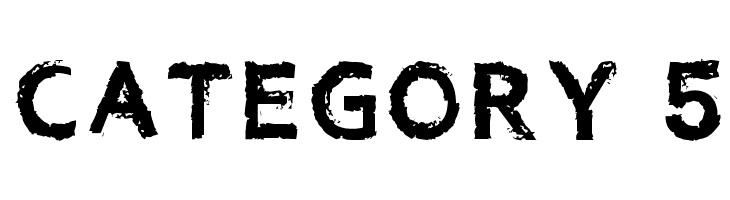
( softhunterdevil - Saptarshi Bagchi )
A futuristic, angular font with a sleek, slanted design.
( Chris Vile - www.chrisvile.com )
A bold, distressed font with a rough, textured appearance ideal for edgy designs.
( GraphicsBam - www.creativefabrica.com/ref/186/ )
A playful, bold outlined font with a whimsical and engaging style.
( GraphicsBam - www.creativefabrica.com/ref/186/ )
A playful, rounded font with smooth curves and a friendly appearance.
( Fonts by Graphics Bam )
A playful, hand-drawn comic-style font with bold outlines and irregular shapes.
( Fonts by Graphics Bam )
A bold, electrified font with jagged edges and high contrast.